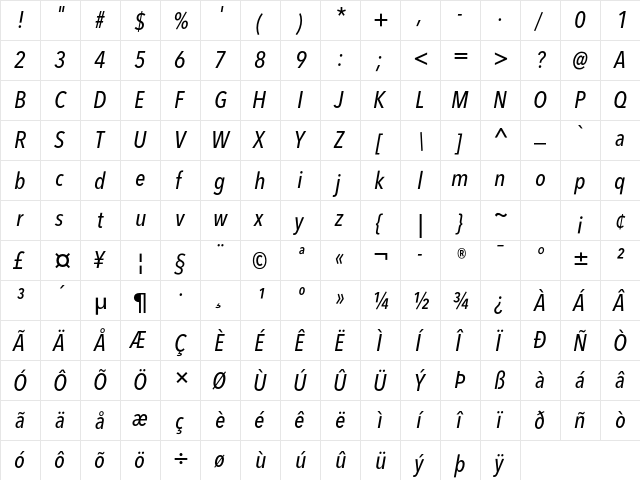
Avenir Next LT Pro Medium Condensed Italic Font Preview
| Style | Medium Condensed Italic |
| Foundry | Linotype Library GmbH |
| Designer | Adrian Frutiger and Akira Kobayashi |
Design Context for Avenir Next LT Pro Typeface
Avenir Next LT Pro is a composed and adaptable typeface that performs quietly and consistently across a wide range of design contexts. Its italic angle brings a sense of urgency and motion to the letterforms. Its slender proportions lend an understated elegance to any composition. The condensed width makes it efficient for tight spaces without sacrificing legibility.
Pro Tip: Try Avenir Next LT Pro for annotation and caption copy alongside an upright companion — the contrast in angle creates a dynamic but ordered typographic system.